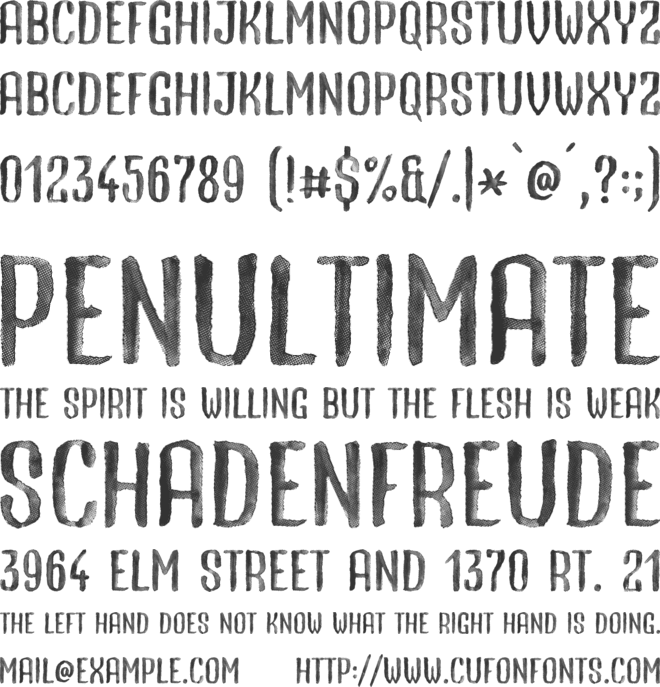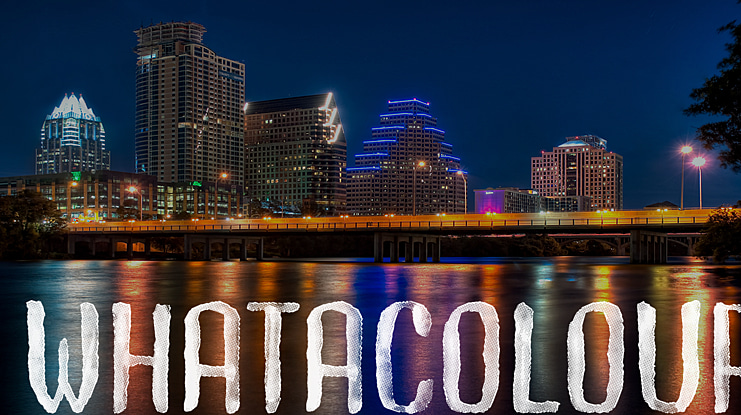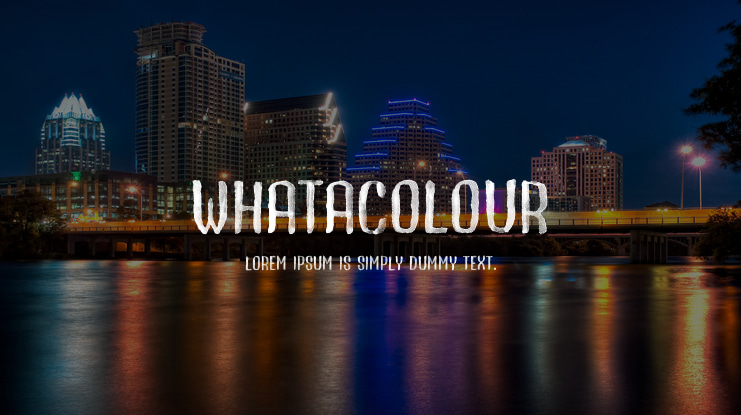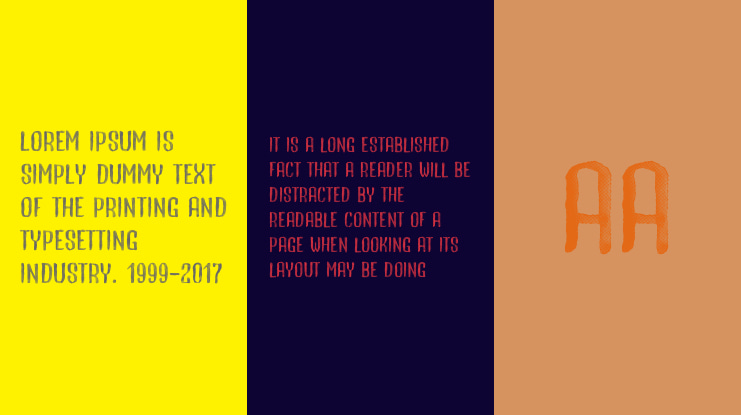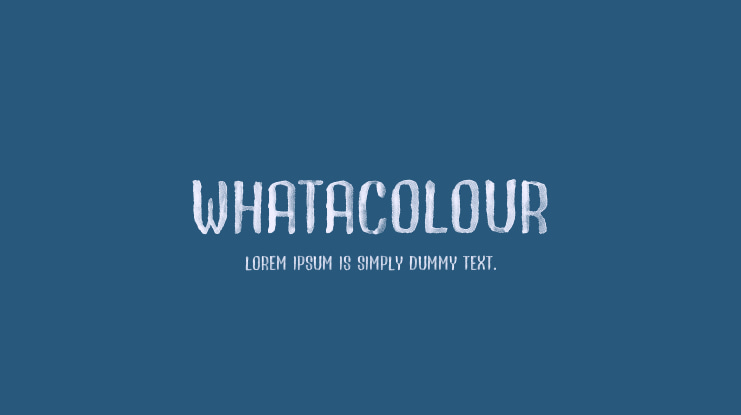
Whatacolour Font Family
I generally prefer simple fonts with as few points as it's possible but this time I decided to create a font emulating shades of grey and it requires a lot of points.
Creating the original design with a brush, watercolours and paper was rather fast and easy but then I spend more than a month experimenting with different approaches and programs to get the best result. In the end I wrote my own converting tool and after a lot of manual tweaking I finally end up with a font that's under 1 MB.
It's still rather big and slow but it's much better than my previous prototypes. =)